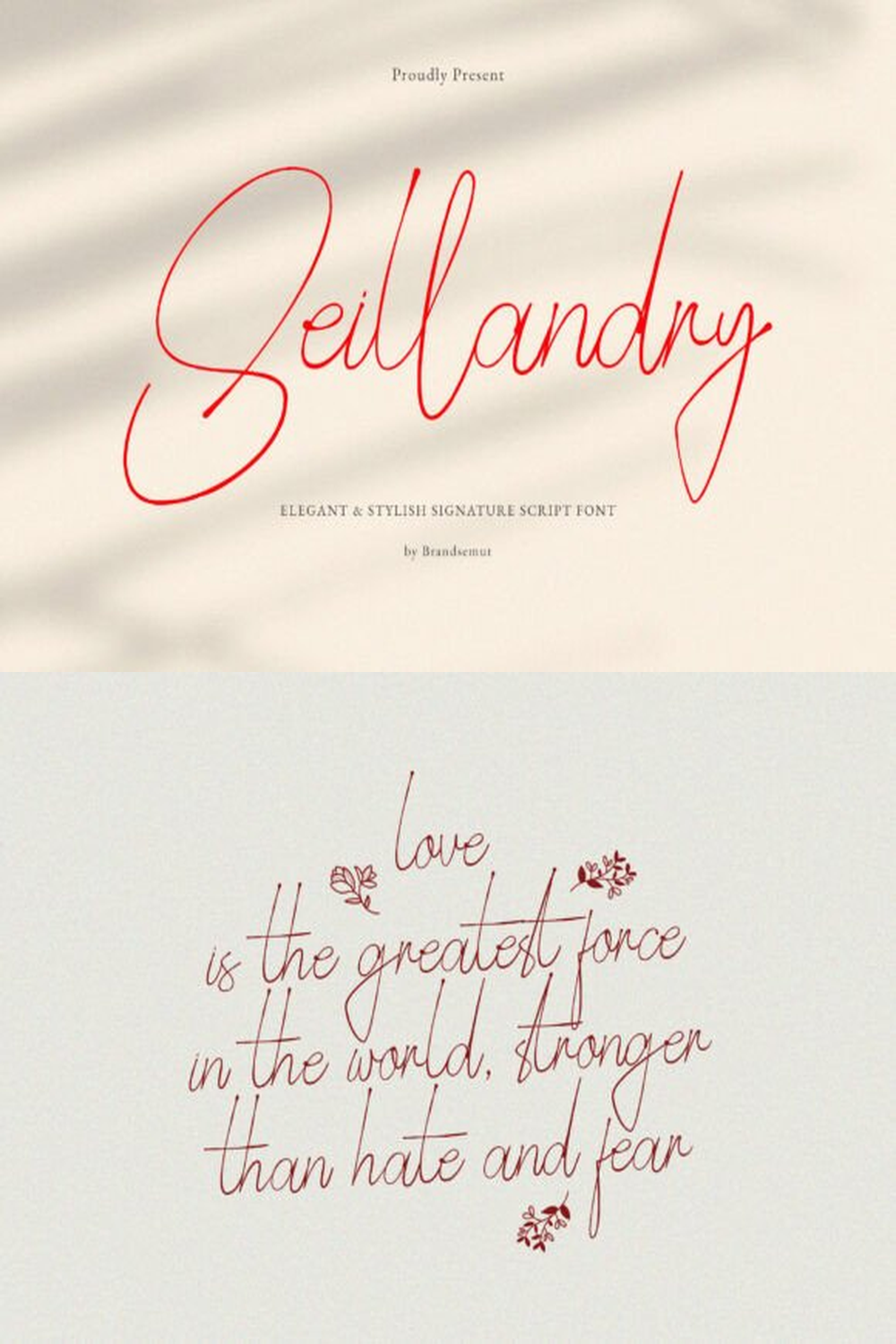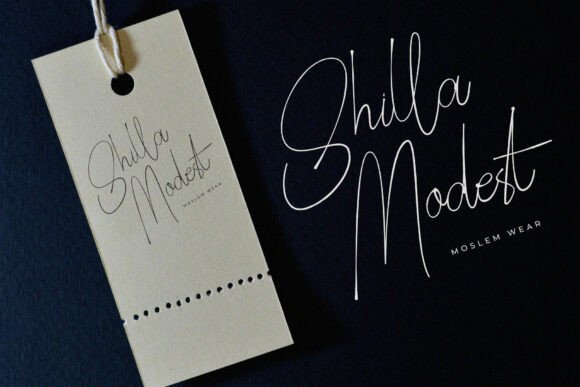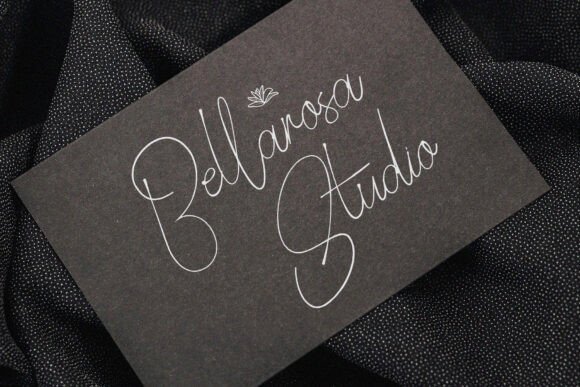
Seillandry Font
About the Seillandry Font
Step up your design game with Seillandry Font, a font that exudes confidence and style. Introducing the new Seillandry Signature Font, an elegant and stylish handwritten script that you can use to perfect your design.
You will get a full set of lowercase and uppercase letters, multilingual, numerals, and punctuation.